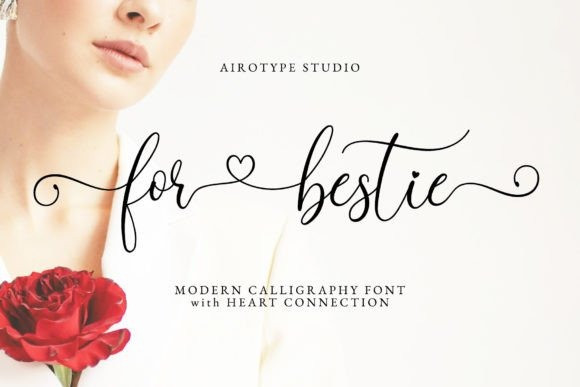
For Bestie Font
For Bestie Font is a thin and chic script font. It is bouncy, sweet, and elegant. This font has a tail swash for its front and back. It also has a heart connection swash.
For Bestie is the perfect font for design with elegant and lovely vibes, such as Valentine’s Day, weddings, farmhouse designs, and others. This font is PUA encoded, which means you can access all of the glyphs and swashes with ease!